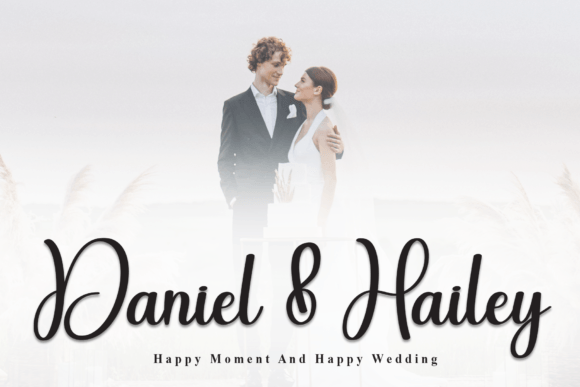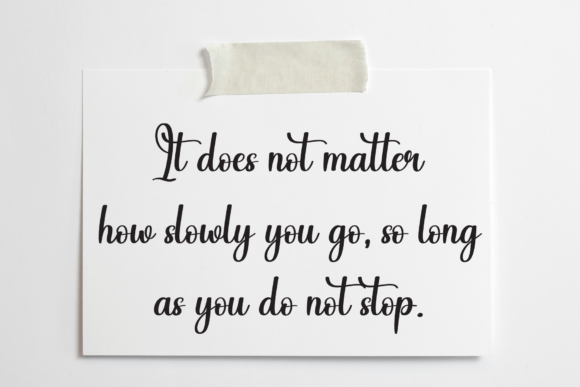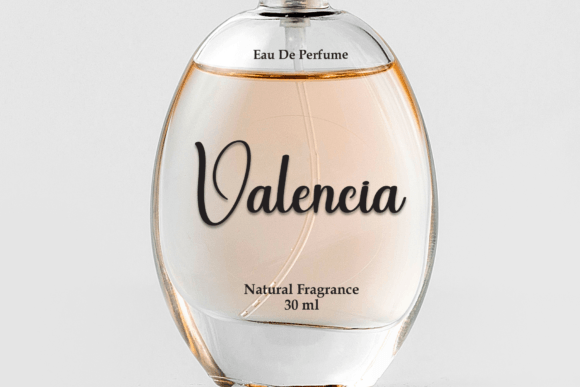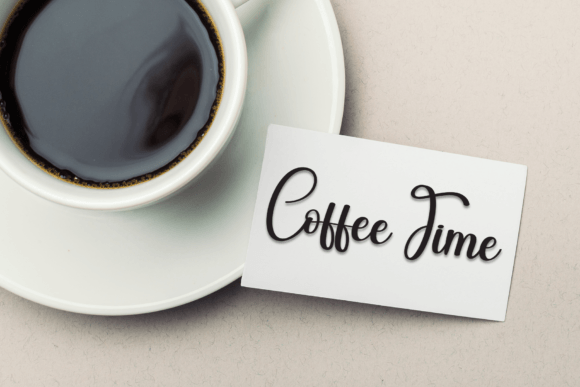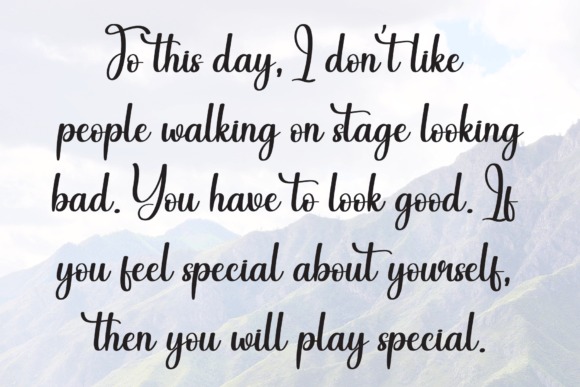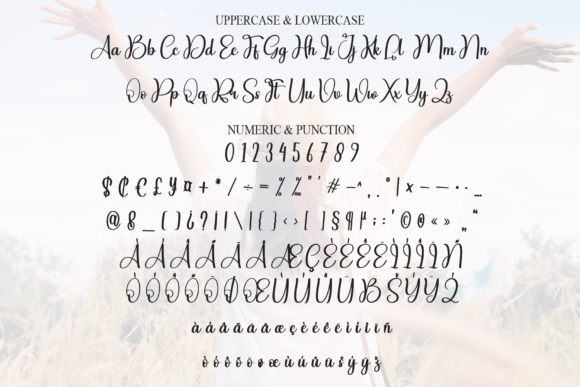
Discover the Magic of Delightful Font
As a designer, there’s nothing quite like the thrill of bringing a project to life. You’re brainstorming ideas, sketching out concepts, and pouring your heart into every detail. And then, it happens – the perfect font comes along, elevating your design to new heights. For me, that font is the Delightful Font, a stylish handwritten script that adds a touch of elegance and charm to any project.
This beautiful font is designed to bring warmth and creativity to your designs, making it perfect for invitations, logos, and branding. With its flowing, graceful curves, Delightful Font adds a personal and sophisticated touch that’s sure to impress. Whether you’re a seasoned pro or just starting out, this font is a valuable addition to any designer’s toolkit.
Delightful Font Key Features
- Unique Characteristics: The font features a unique blend of modern and vintage elements, with subtle flair and ornamentation that adds a touch of elegance to any text.
Designer Review: Delightful Font
Overall, I’m quite pleased with the Delightful Font. It’s a great choice for any project that requires a touch of elegance and sophistication. ✨ The font’s refined lines and subtle curves make it perfect for body text, while its bold weight is ideal for headlines.
Here are some of the font’s key strengths:
- ✨ Beautifully crafted letterforms that are both aesthetically pleasing and easy to read.
- ✨ Wide range of weights, from ultra-light to extra-bold, allowing for maximum flexibility.
- ✨ Excellent legibility, even at small font sizes.
- ⚠️ The font’s condensed forms can sometimes feel a bit too narrow, particularly in certain word combinations.
- ⚠️ Some users may find the font’s subtlety to be a drawback, as it may not be attention-grabbing enough for certain applications.
Despite these limitations, I would highly recommend the Delightful Font for any project where a touch of class is required. It’s a solid choice that’s sure to please even the most discerning designers.
Delightful Font Practical Application Guide
Tip: Use Delightful Font for headings to add a touch of elegance to your design.
Tip: Use Delightful Font for titles and headings to create a consistent look across your design.
Tip: Use Delightful Font for headings and titles to add a touch of sophistication to your presentation or document.
Delightful Font is perfect for:
- Editorial and publishing projects
Remember to use Delightful Font consistently across your design to create a cohesive and professional look.